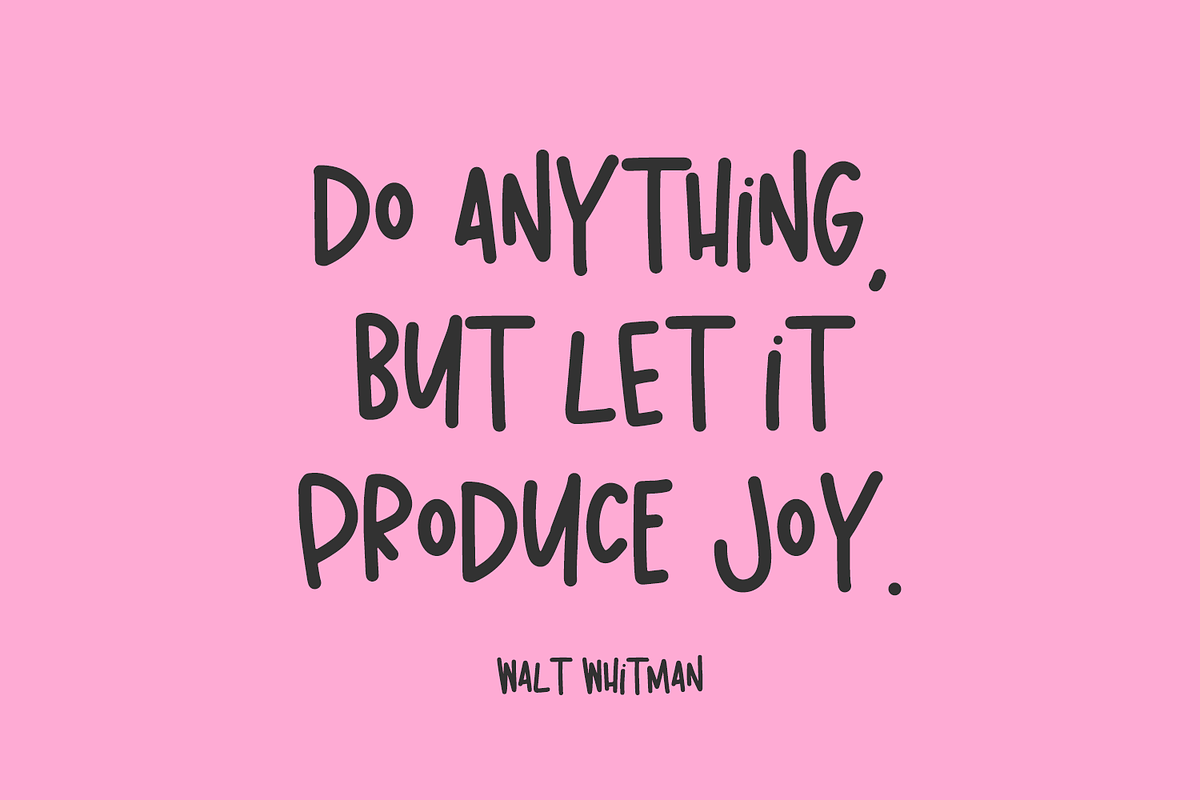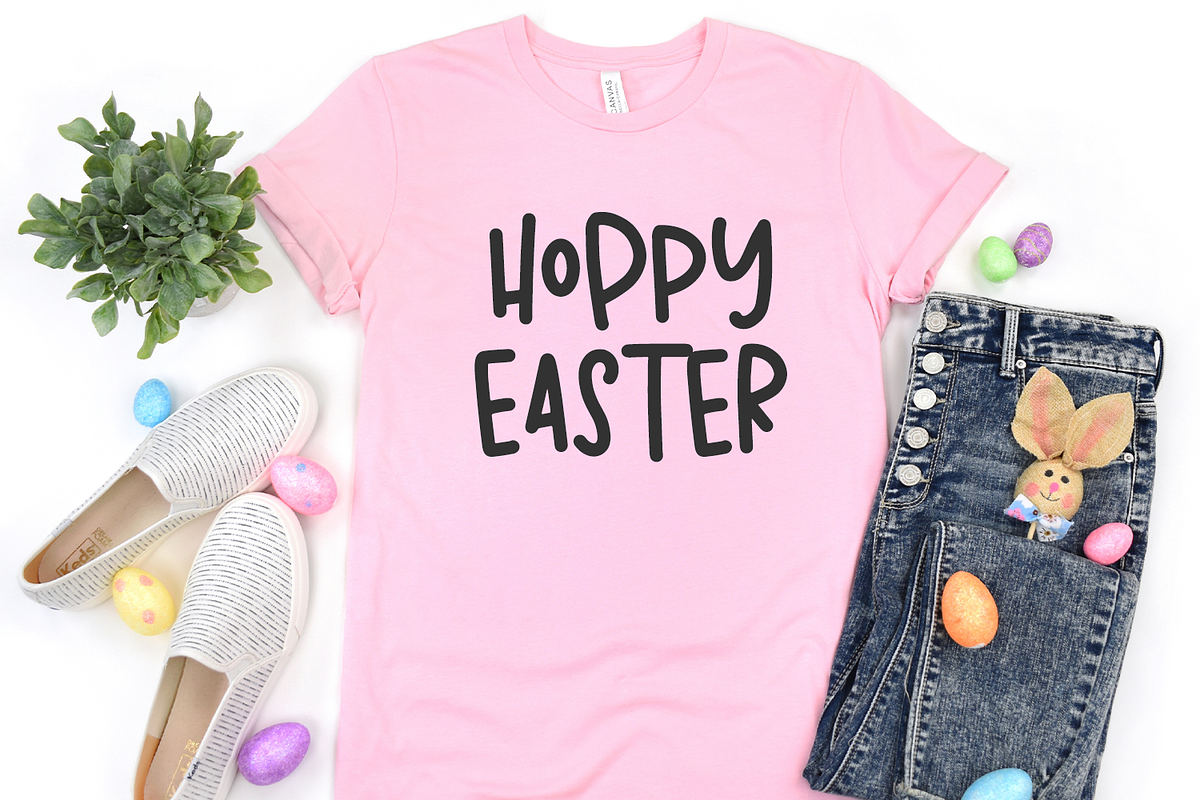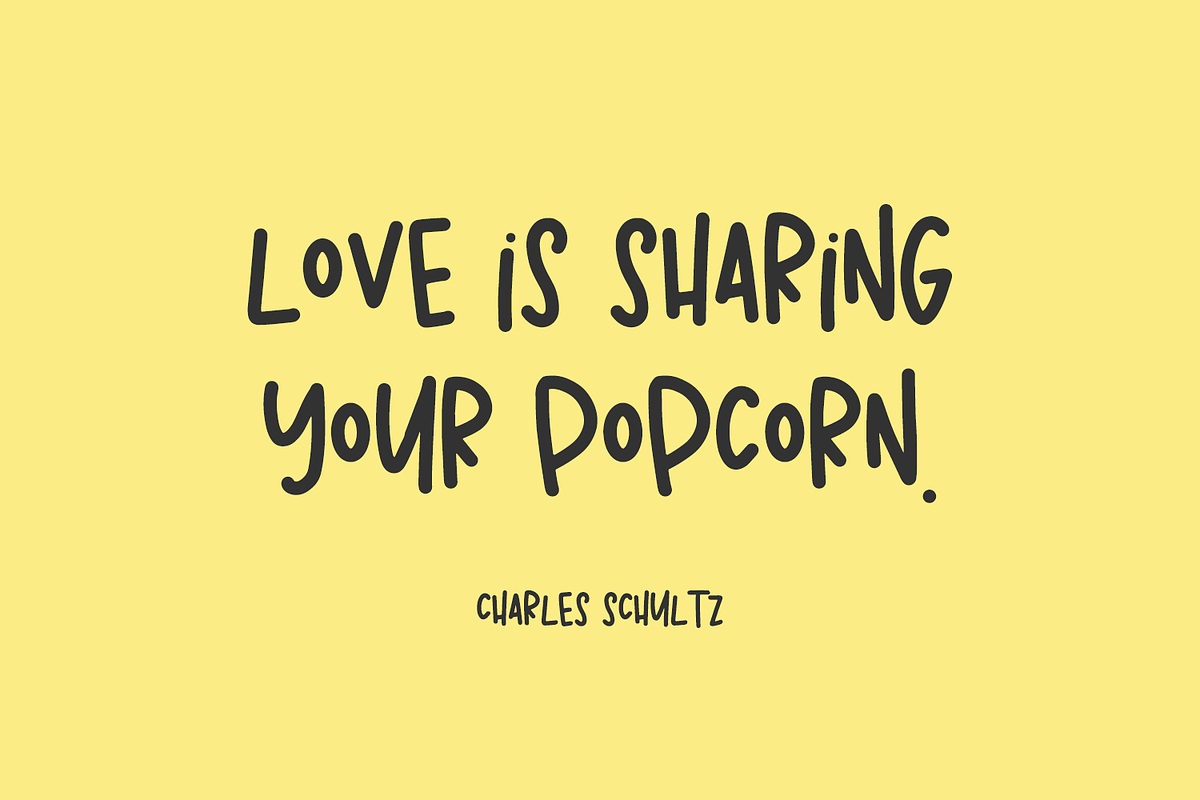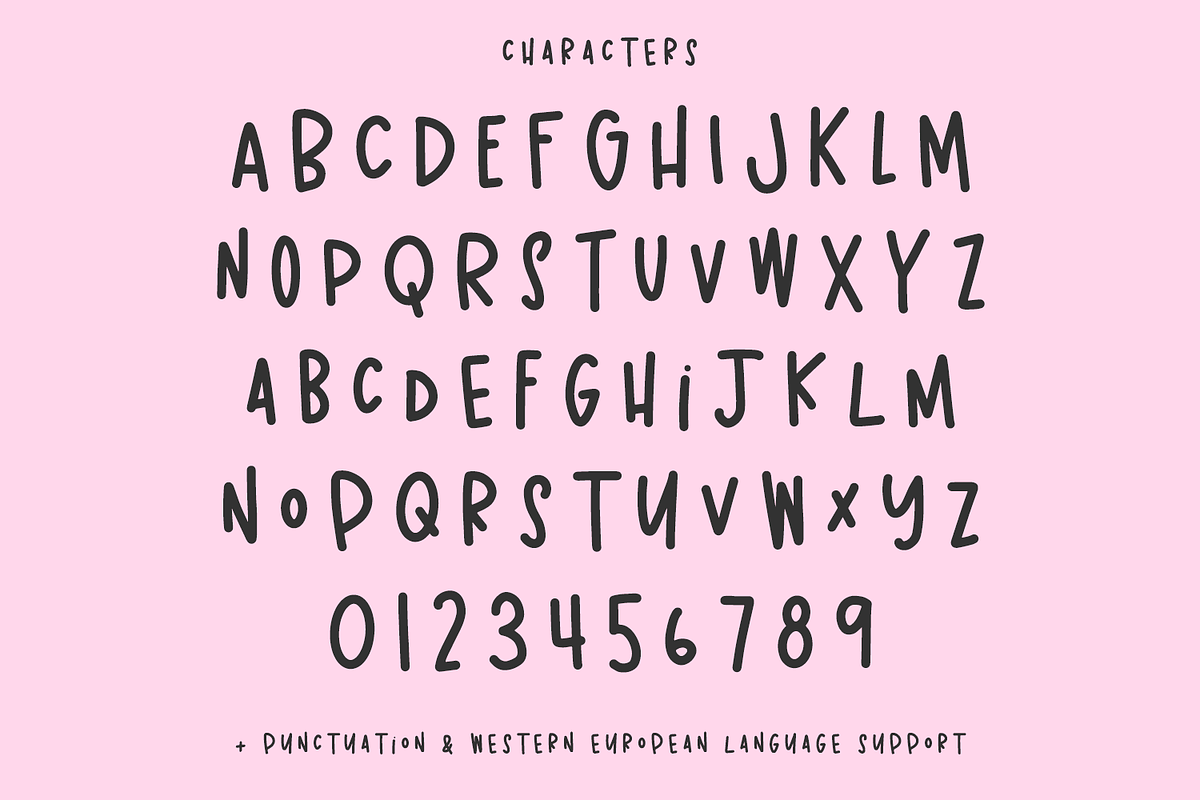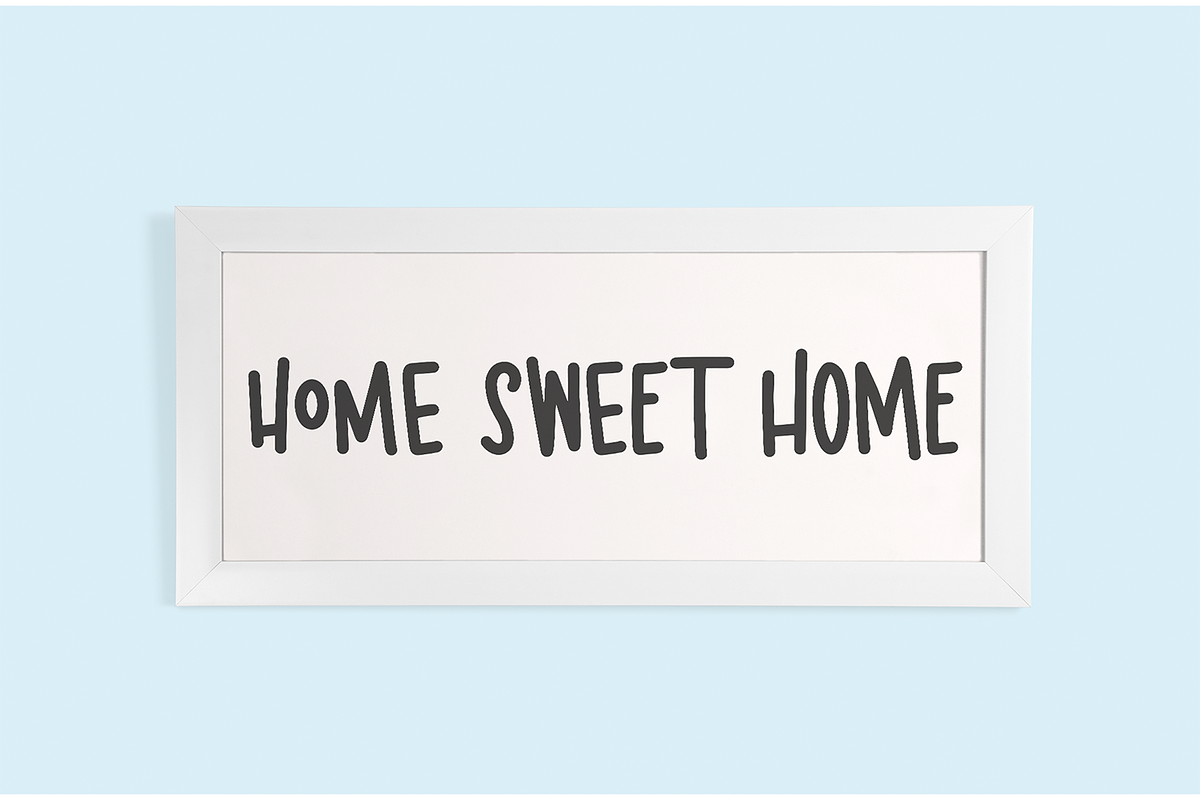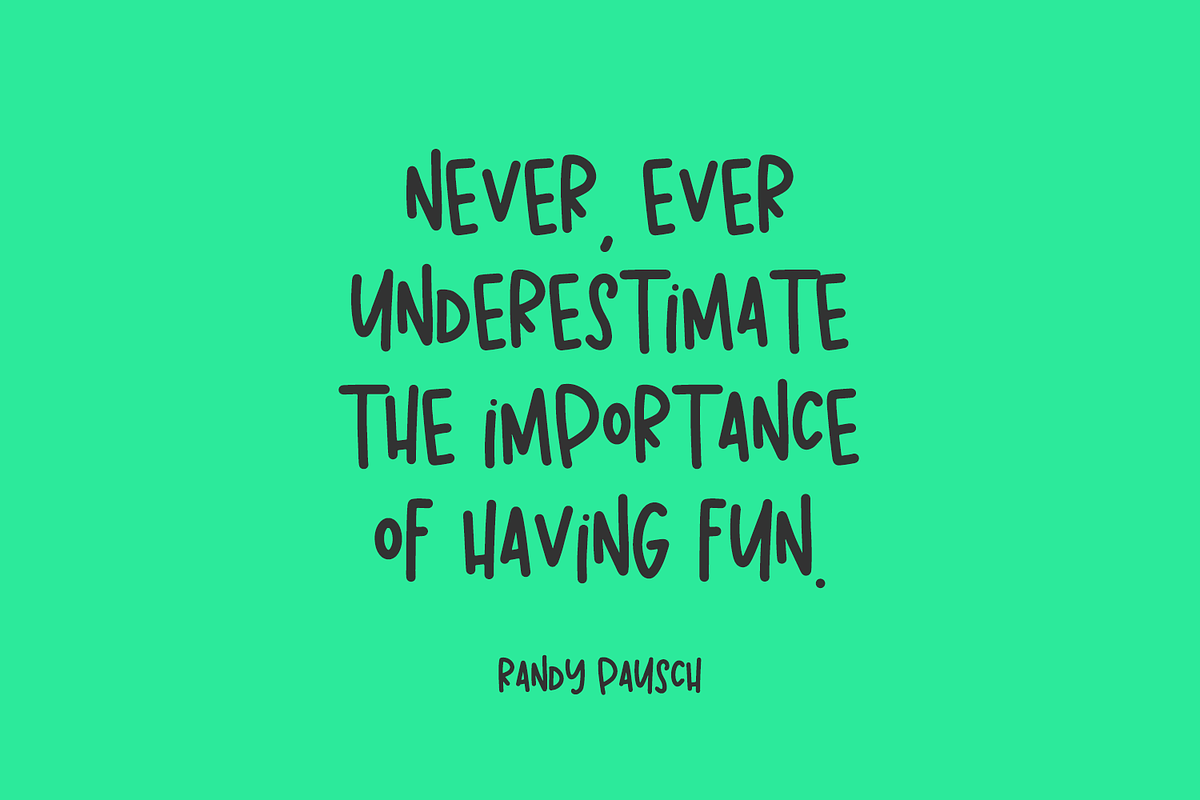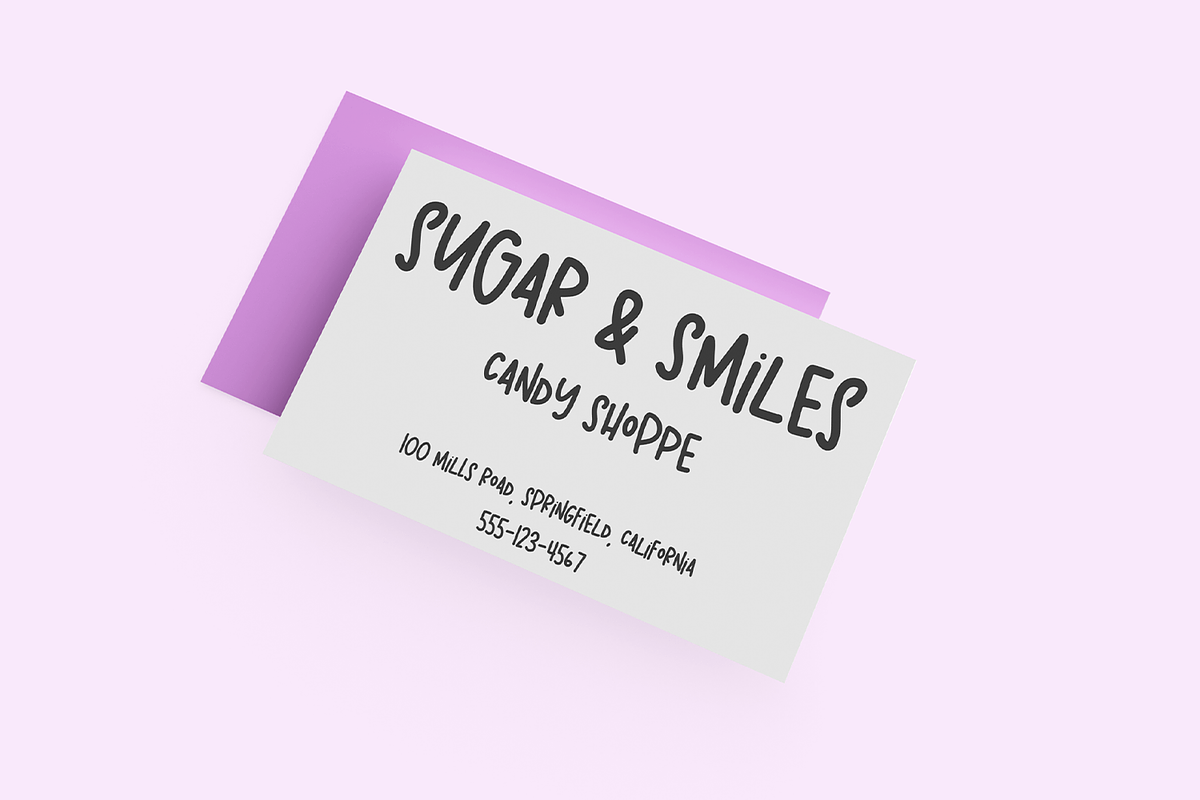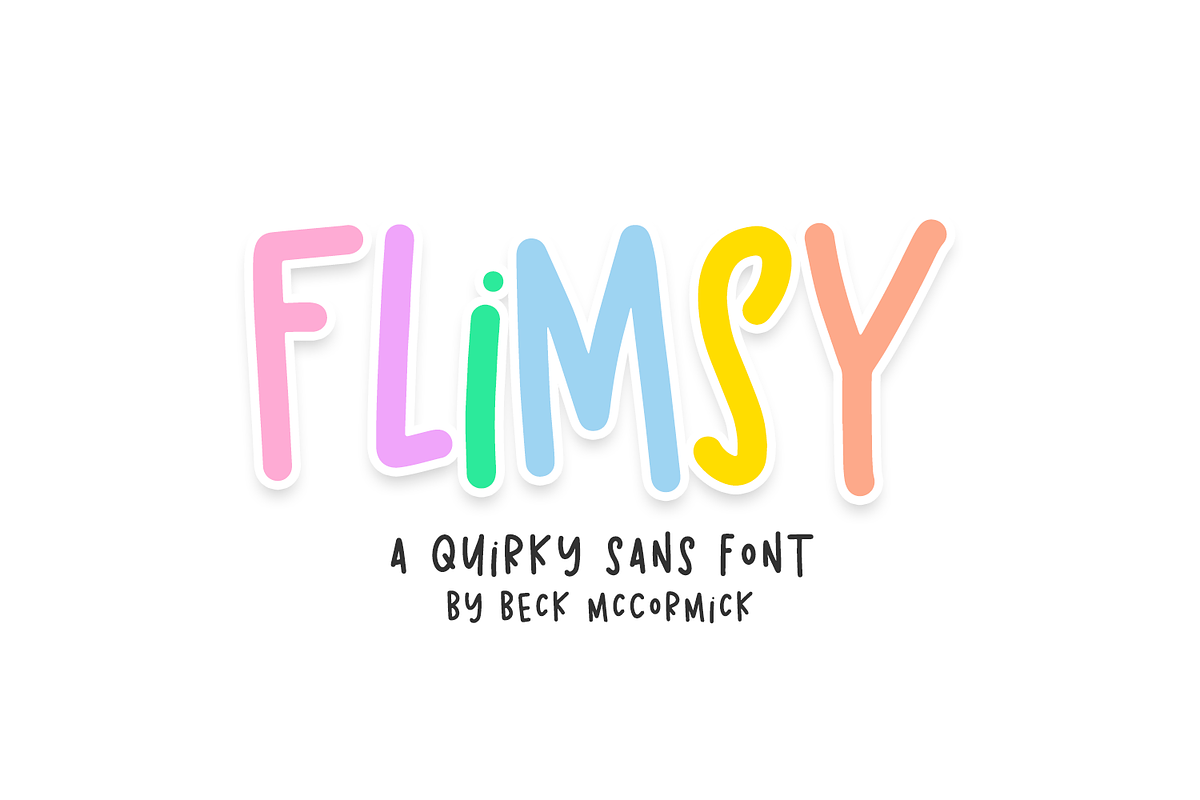
Flimsy Sans
Say hello to Flimsy, an all-caps sans font. Flimsy is cute and quirky.
Flimsy is best for:
- feminine, crafty projects with your Cricut or Silhouette machine, or your SVG design business
- farmhouse decor and crafts
- logos + branding
- website design + website accents, blog design
- clean print design, like magazines + flyers
- header elements that need handwritten touch
- quote graphics for social media
- feminine graphic tee shirt design & other apparel
- full upper + lowercase characters (two caps sets of letters)
- numbers + punctuation
- Western European Language Support